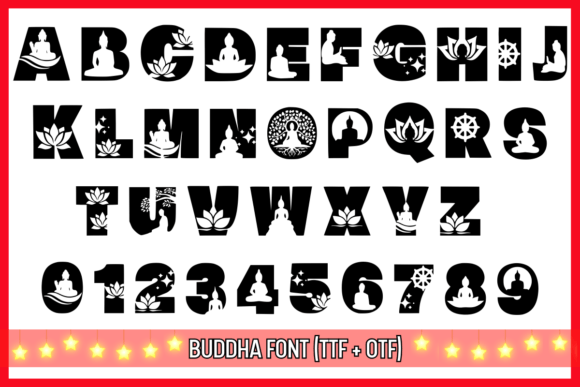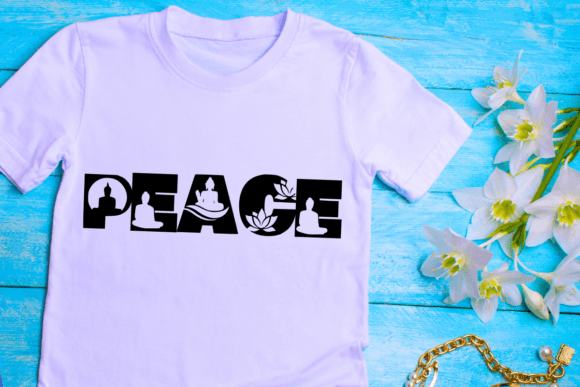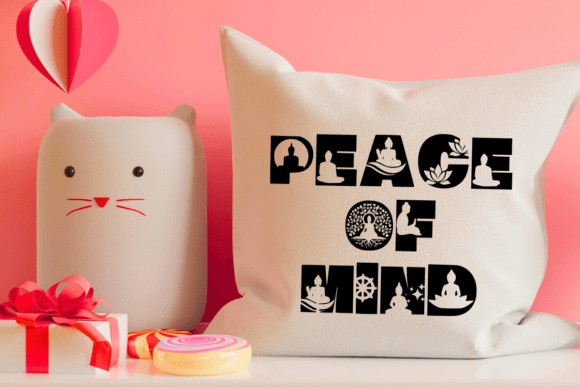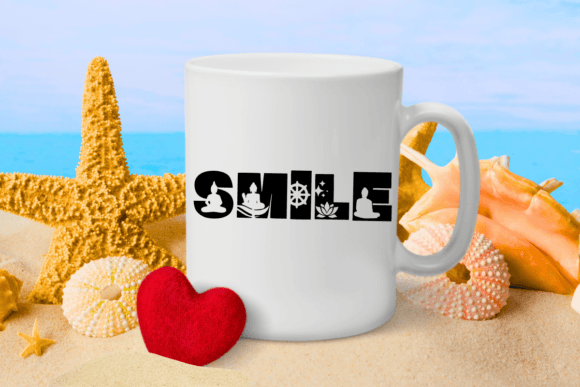
Discover the Serenity of Buddha Font: A Unique Decorative Typeface
In the world of typography, fonts play a crucial role in conveying emotions and setting the tone for various design projects. For designers and crafters seeking a distinctive and calming visual effect, the Buddha Font, particularly “Buddha Bold,” offers an elegant solution. This decorative font combines bold letters with subtle silhouettes of Buddha, creating a harmonious blend of style and spirituality.
The Essence of Buddha Bold
“Buddha Bold” is a decorative font that stands out for its innovative design. Each letter in the font features a subtle silhouette of Buddha, seamlessly integrated into the bold and elegant letterforms. This unique design approach results in a visually striking effect that is both calming and thought-provoking. The combination of peaceful Buddha figures with bold typography creates a distinctive aesthetic that can elevate various design projects.
Key Features of Buddha Font
- Unique Design: The integration of Buddha silhouettes into bold letters offers a fresh and distinctive look.
- Elegant and Calming: The font’s design evokes a sense of peace and serenity, making it ideal for projects requiring a soothing aesthetic.
- Versatile: Suitable for a wide range of design projects, from spiritual and wellness-related content to creative artistic expressions.
- High Readability: Despite its decorative nature, the font maintains high readability, making it practical for use in various contexts.
Applications of Buddha Font
The Buddha Font, especially the “Buddha Bold” variant, finds its application in diverse design and crafting projects. Here are some areas where this font can make a significant impact:
- Spiritual and Wellness Content: Ideal for creating meditation guides, yoga manuals, and spiritual blogs that seek a peaceful and inviting tone.
- Art and Craft Projects: Perfect for artists and crafters working on projects that require a unique and inspiring aesthetic.
- Educational Materials: Can be used in educational resources focusing on Buddhism, mindfulness, and Eastern philosophy, adding an engaging visual element to the content.
- Event and Product Branding: Suitable for branding and promotional materials for events, products, or services related to wellness, spirituality, and art.
Tips for Using Buddha Font Effectively
To maximize the impact of the Buddha Font in your designs, consider the following tips:
- Pair with Complementary Fonts: Use the Buddha Font as a headline font and pair it with simpler fonts for body text to maintain readability and visual balance.
- Choose Appropriate Colors: Opt for calming and earthy tones that complement the peaceful nature of the font.
- Consider the Context: Ensure that the use of a Buddha-themed font aligns with the project’s context and audience to maintain respect and relevance.
The Buddha Font, with its unique blend of elegant bold letters and peaceful Buddha silhouettes, offers designers and crafters a distinctive tool for creating visually striking and emotionally resonant designs. Whether for spiritual content, artistic projects, or educational materials, “Buddha Bold” and the Buddha Font family provide a serene and captivating aesthetic. By incorporating this font into your design repertoire, you can explore new dimensions of creativity and connect with your audience on a deeper level.
Embracing the Buddha Font in your design work can lead to the creation of serene, engaging, and thought-provoking content. Its unique aesthetic not only sets your projects apart but also invites viewers to experience a moment of peace and reflection.